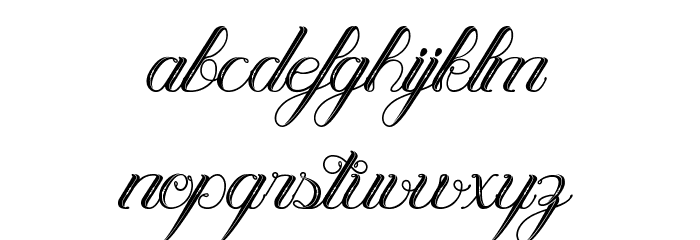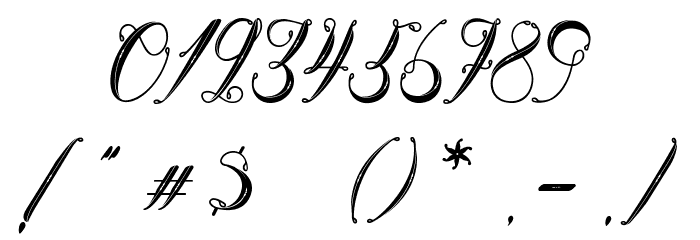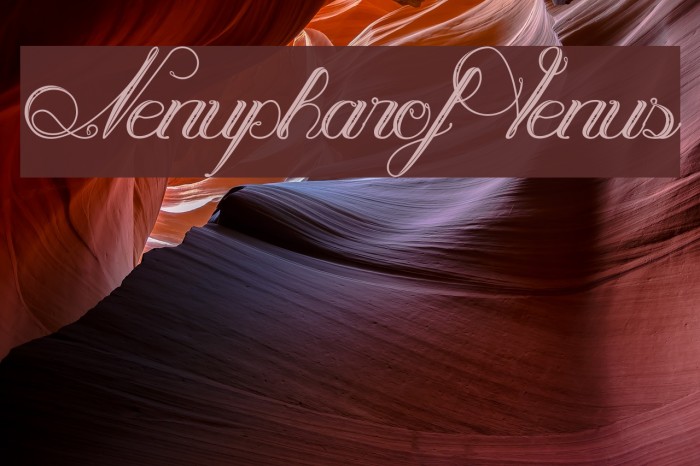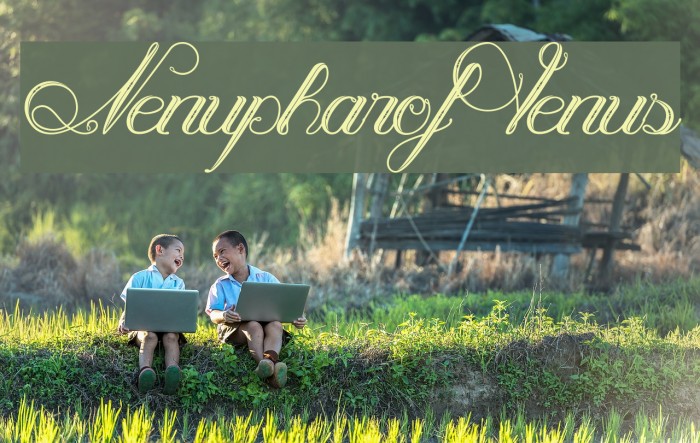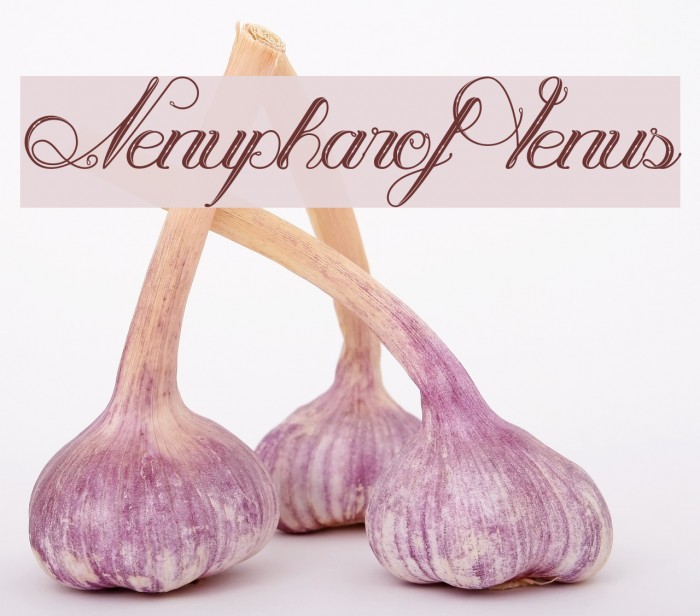
NenupharofVenus Font
This elegant script font features intricate swirls and flourishes, giving it a sophisticated and ornate appearance. The uppercase letters are highly decorative, with elaborate loops and curves that add a touch of luxury and refinement. The lowercase letters maintain a graceful flow, complementing the uppercase with their smooth, connected strokes. Numbers and special characters are designed with the same attention to detail, ensuring a cohesive look across all elements. This font's delicate and artistic style makes it ideal for projects that require a touch of elegance and class.
An ornate script font with intricate swirls and elegant flourishes.
- Proposed Projects: Wedding invitations, luxury branding, high-end product packaging, elegant event posters.
- Use Case: Logos, Invitations, Decorative headings.